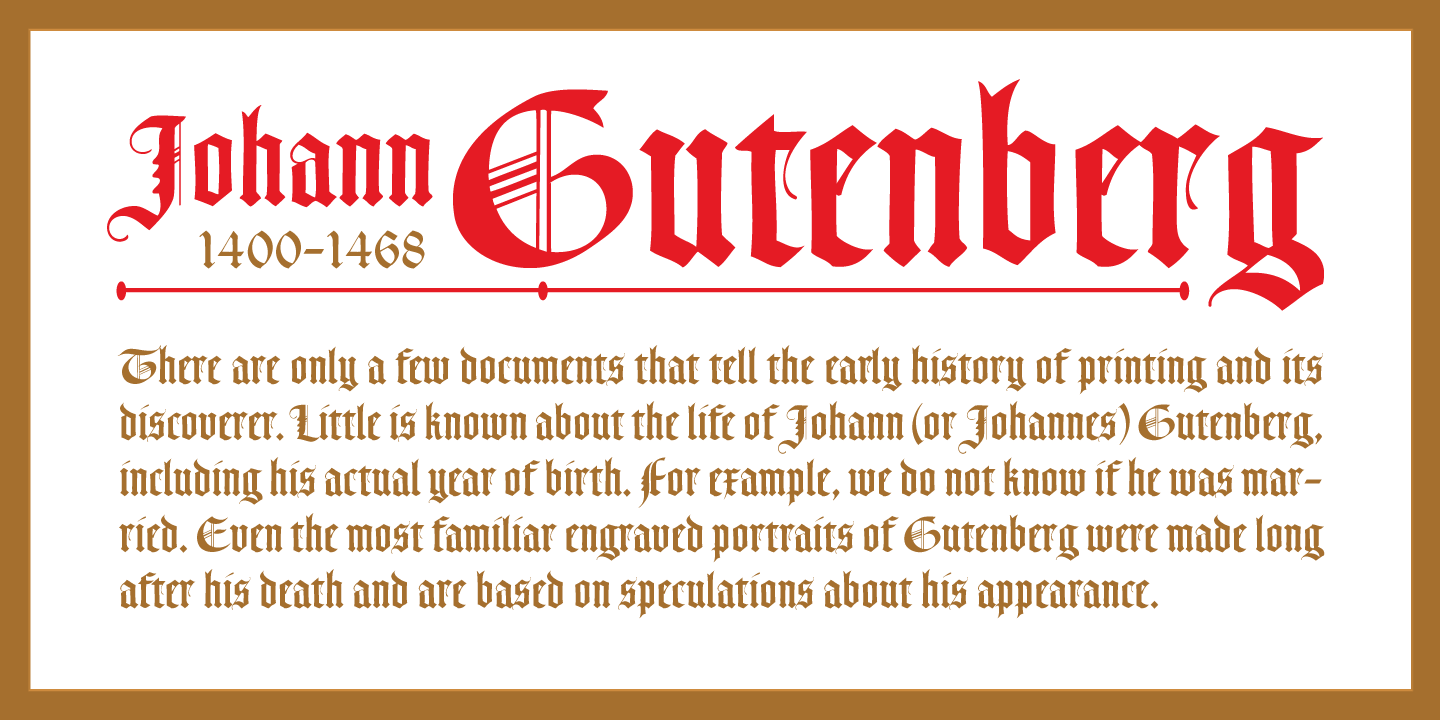
Bring historical depth and gothic elegance to your designs with Cal Gothic Textura Font Free Download. Inspired by medieval blackletter styles, this highly detailed typeface features sharp, angular strokes and dramatic letterforms—perfect for vintage posters, historical projects, certificates, book covers, and fantasy-themed branding. Cal Gothic Textura Font Free Download captures the rich tradition of manuscript lettering with a bold, artistic presence.
The ornate structure of Cal Gothic Textura Font lends itself well to display use, making it ideal for titles, logos, and decorative headers. Whether you’re designing for cultural events, period dramas, or gothic fashion labels, this font adds a touch of authenticity and dramatic flair that commands attention.